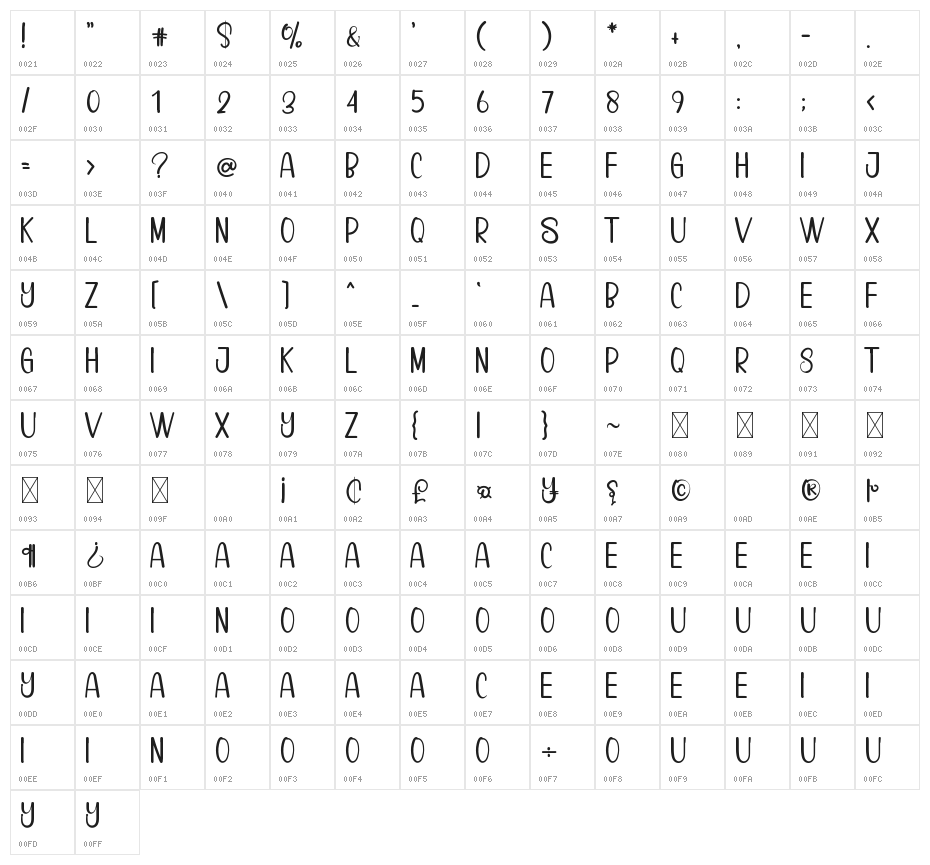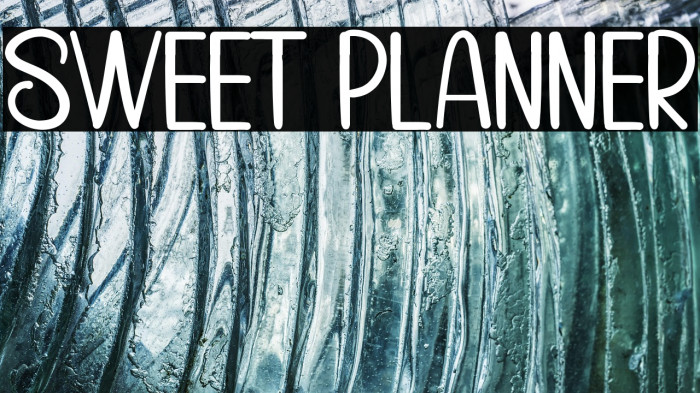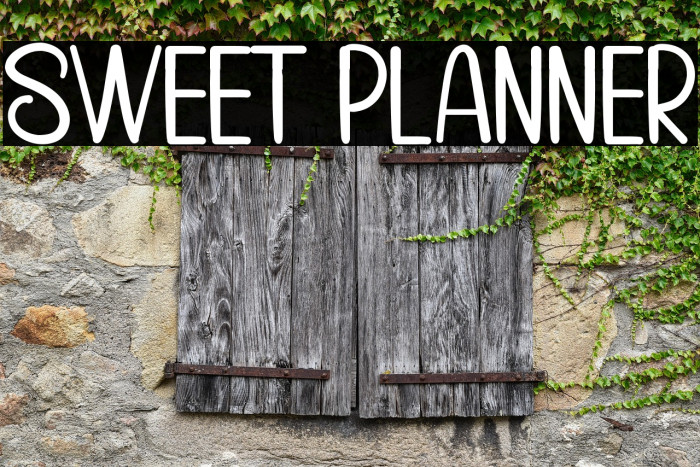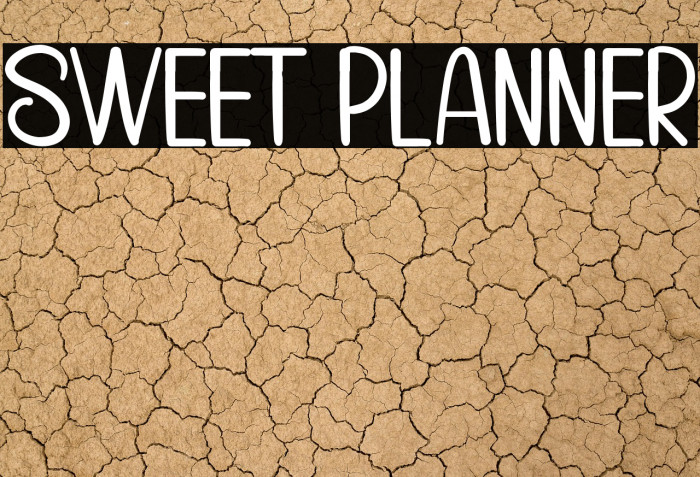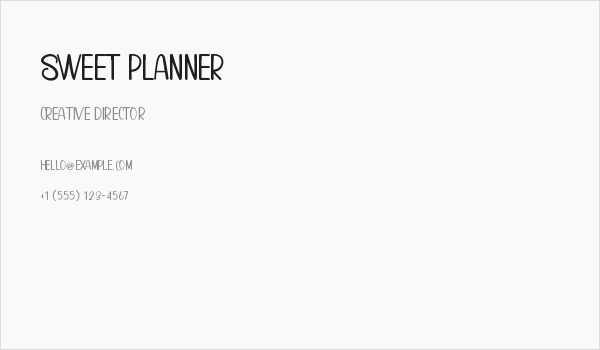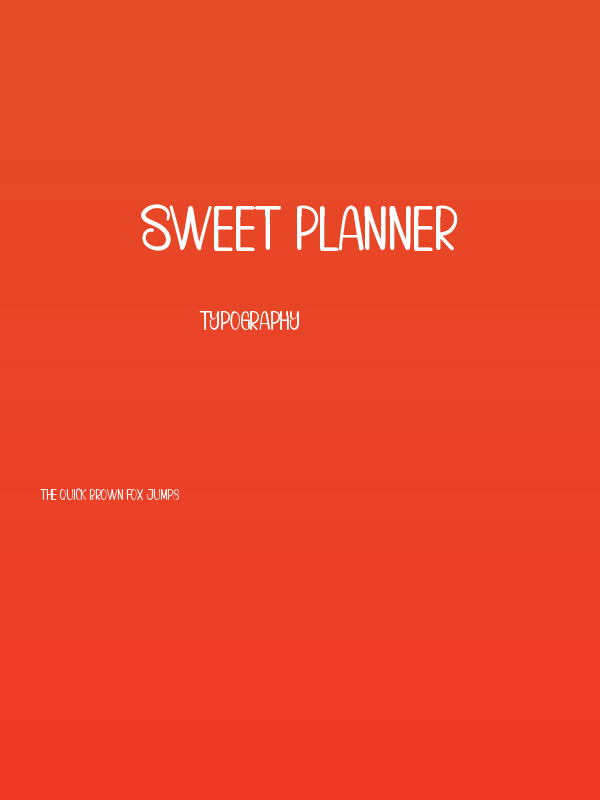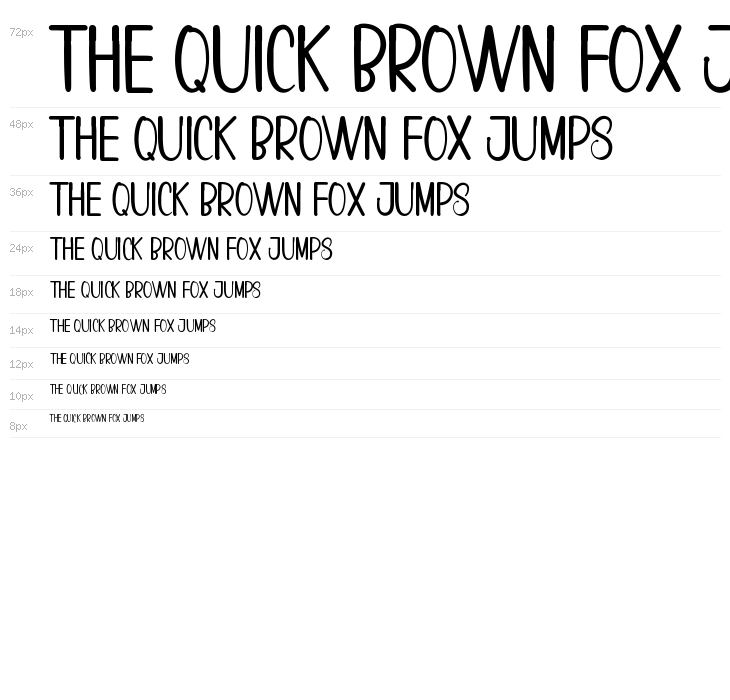
Sweet Planner Font
Sweet Planner Description
A playful, handwritten style font with rounded edges and a casual appearance.
| Use Case | Headlines, Informal text, Branding |
| Proposed Projects | Greeting cards, invitations, casual branding. |